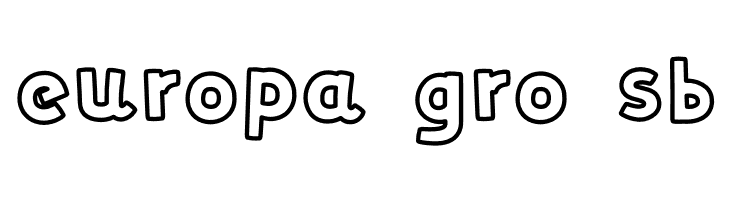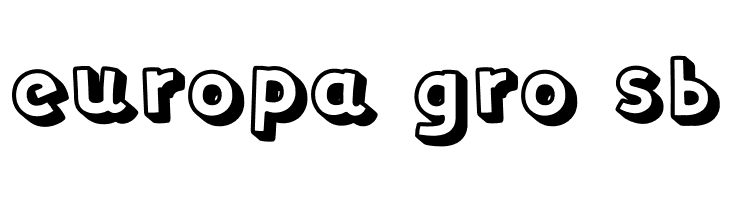
A bold, three-dimensional font with an offset shadow effect, offering a modern and dynamic appearance.
A bold, playful font with rounded edges and a whimsical style.
A bold, outlined font with a playful and modern style.
A bold, playful font with a three-dimensional shadow effect.